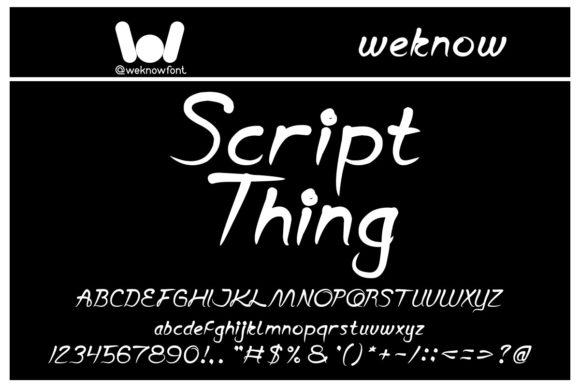
Script Thing: A Handwritten Font for Authentic Connection
You know the feeling when a design just clicks? It’s not about the perfect photo or the cleverest copy. It’s that small, human touch that makes someone pause. That’s the power a great handwritten font can wield, and Script Thing is a typeface built for exactly that. It’s not just another script font; it’s a versatile tool for injecting personality and warmth into projects that risk feeling sterile. Think of it as your design’s friendly handshake.
What Makes Script Thing Tick?
At its heart, Script Thing is a cute and adaptable handwritten font. But let’s break that down. “Cute” doesn’t mean childish. Here, it translates to approachable, friendly, and gently rounded. The letterforms have a consistent, flowing rhythm that feels natural, like quick, confident pen strokes. There’s a subtle bounce to the baseline that adds energy without causing chaos. This balance is key—it’s legible enough for short paragraphs but expressive enough to be a standout display font.
Its adaptability is where it truly shines. As a premium font, it’s engineered for more than just looking pretty on a mood board. The clean construction means it scales well, and its style straddles a line between casual and polished. It avoids the overly flourished loops of traditional script fonts or the stark uniformity of a sans serif font. Instead, it occupies a sweet spot, making it a powerful creative font for a wide array of contexts. It’s the typographic equivalent of a well-fitted pair of jeans—appropriate in many settings, always comfortable, and inherently stylish.
Where Does This Font Feel Most at Home?
The real test of any design asset is its practical application. Script Thing’s strength lies in its chameleon-like ability to fit into diverse projects. For brand identity, it’s a secret weapon for startups and small businesses looking to establish a relatable voice. Imagine it on a café’s menu, a boutique’s shopping bag, or the logo for a handmade jewelry line. It instantly communicates craftsmanship and personal care, building a stronger brand perception than a generic corporate font ever could.
In editorial design and publishing, it brings life to headers in magazines, chapter titles in lifestyle books, or pull quotes in blogs. It catches the eye without overwhelming the accompanying serif font or sans serif font used for body text. For digital creators, it’s a gem. Use it for social media graphics on Instagram Stories, YouTube thumbnails, or website hero sections to add immediate personality. It translates beautifully to packaging design, adding a handcrafted feel to product labels, and it’s equally effective on apparel, giving t-shirts and tote bags a custom, artistic vibe.
Even in more structured environments, like a corporate presentation or a formal invitation, a touch of Script Thing in the right place—like a keynote title slide or an event name—can break the ice and make content more engaging. It’s about using its personality strategically to enhance, not distract from, your message.
Making It Work: Practical Tips for Designers and Creators
Choosing a font is just the first step. Using it effectively is what separates good design from great. Here’s how to get the most out of Script Thing.
Evaluate the Fit: Ask yourself: Does this project call for a human touch? Is the goal to feel friendly, creative, artisanal, or personal? If the answer is yes, Script Thing is likely a strong candidate. It’s less suited for legal documents or highly technical manuals where absolute clarity and neutrality are paramount.
Master the Pairing: The font pairing makes or breaks the design. Script Thing works exceptionally well with clean, geometric sans serif fonts (like Montserrat or Lato) for a modern, balanced look. For a more classic, elegant feel, pair it with a transitional serif font (like Georgia or Merriweather). The contrast allows the handwritten font to headline while the companion font handles readability in longer text. Always test pairings at the size they’ll be used.
Consider Readability and Hierarchy: As with any handwritten font, context is everything. Script Thing is perfect for headlines, short captions, logos, and call-to-action buttons. For body text over a few lines, its readability can decrease. Use it to create a clear visual hierarchy: let it draw attention to the most important information, and let a more neutral font carry the detailed content. This guides the viewer’s eye and improves overall comprehension.
Ultimately, typography is about voice. Script Thing gives your projects a voice that is confident, approachable, and unmistakably human. It’s a tool that, when used thoughtfully, doesn’t just decorate a design—it connects with your audience on a personal level, making your message not just seen, but felt.